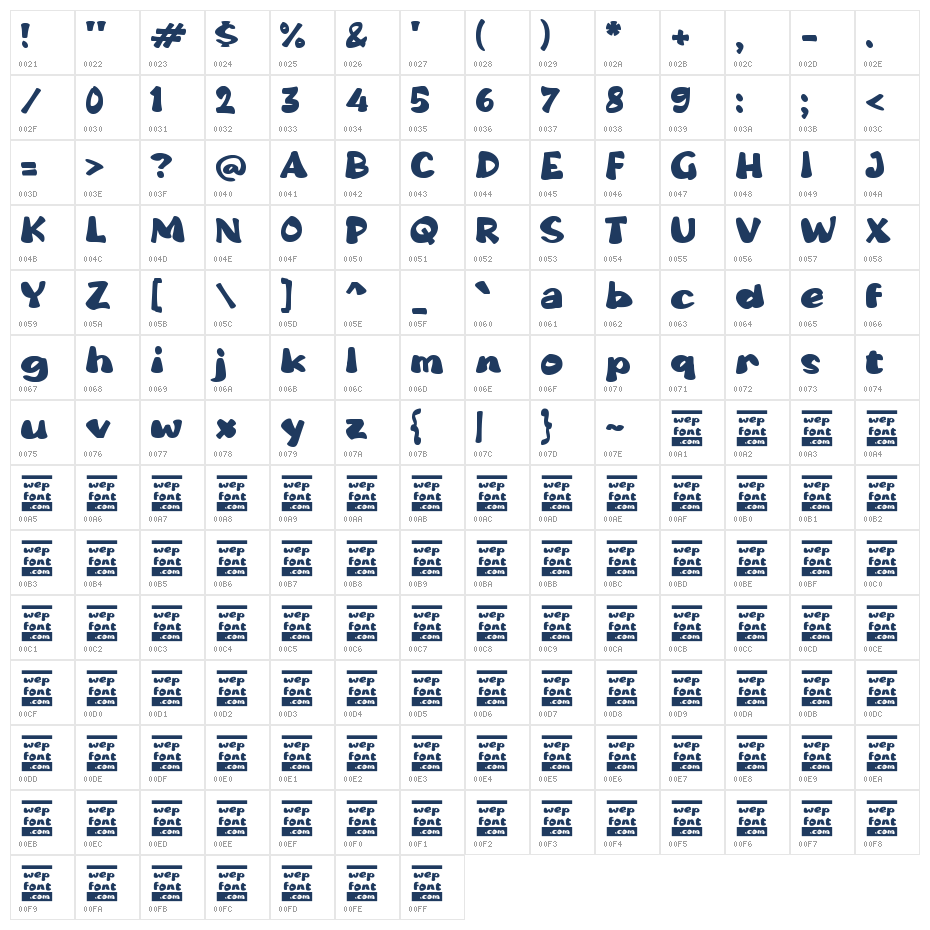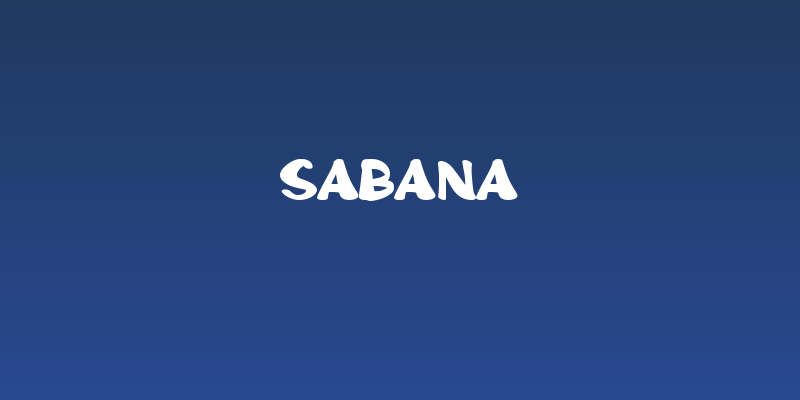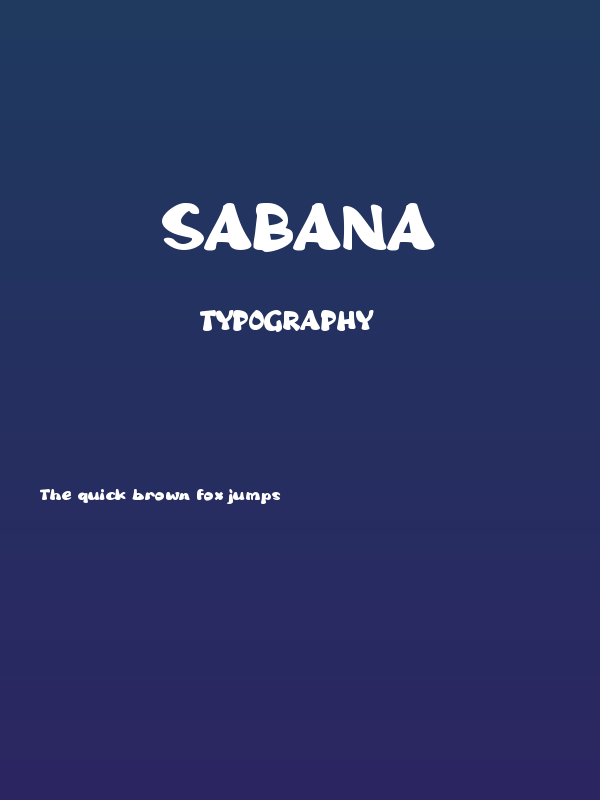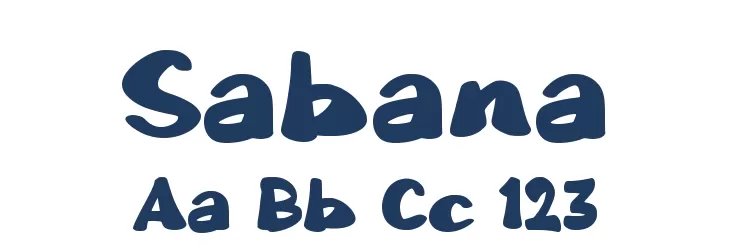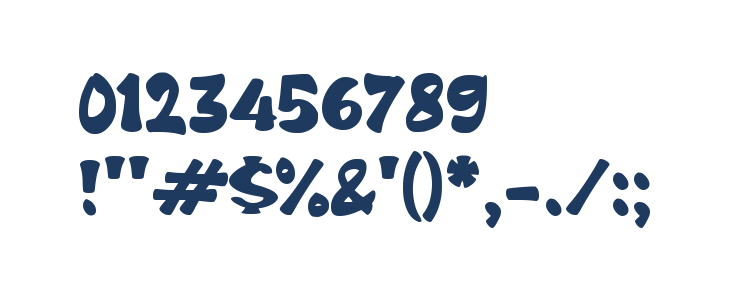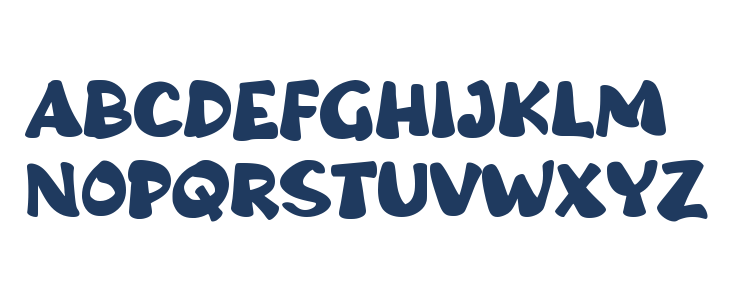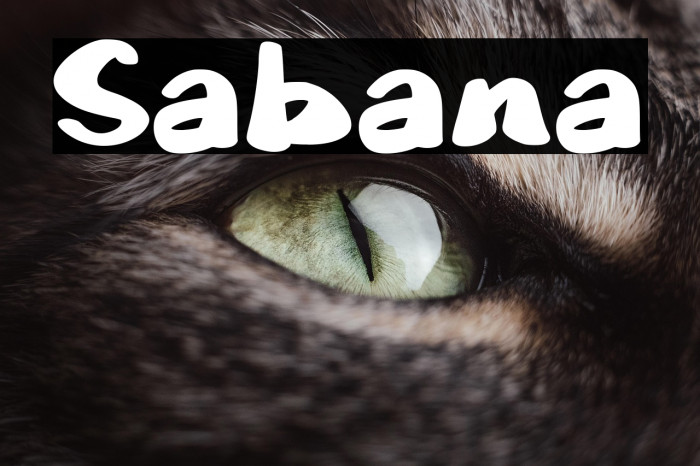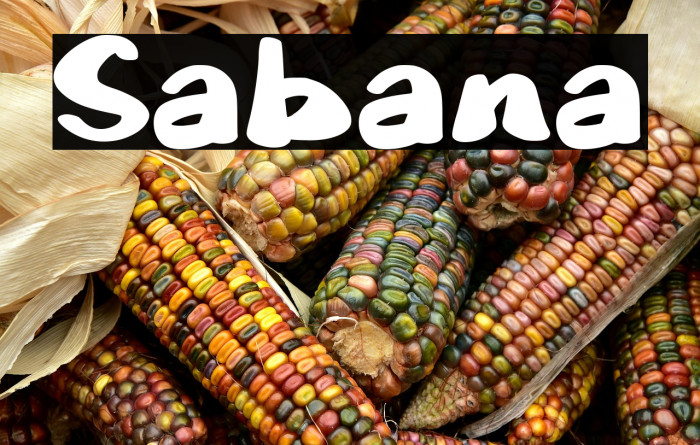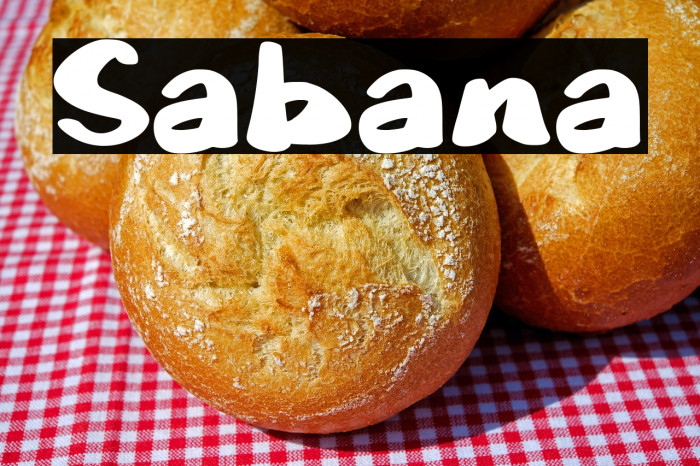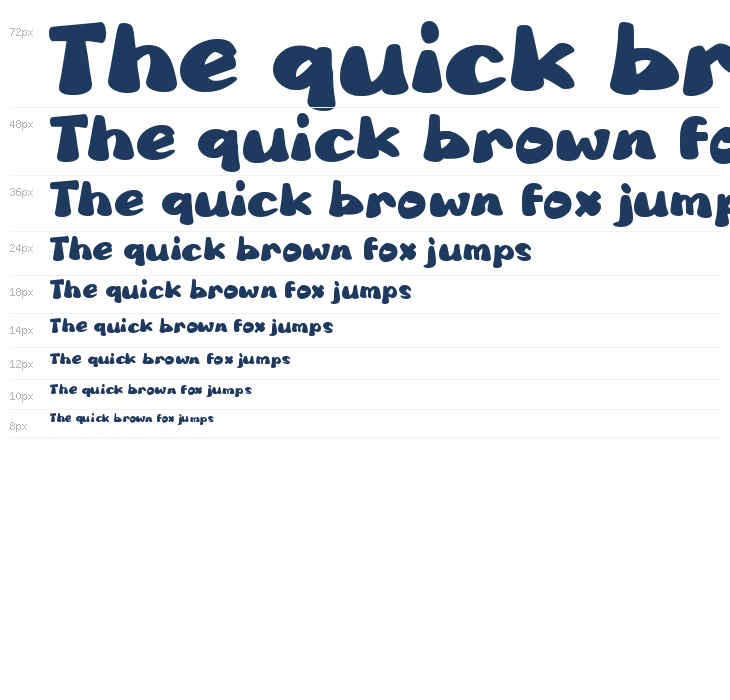
Sabana Font
Sabana Description
A playful, bold, rounded sans-serif font with a casual and friendly appearance.
| Overall Style | Casual, Playful, Friendly |
| Use Case | Headlines, Logos, Posters, Children's materials |